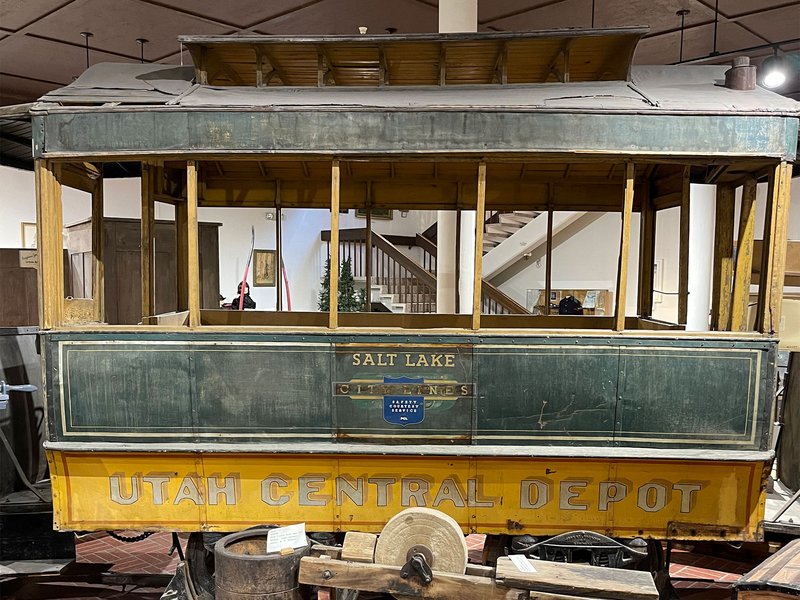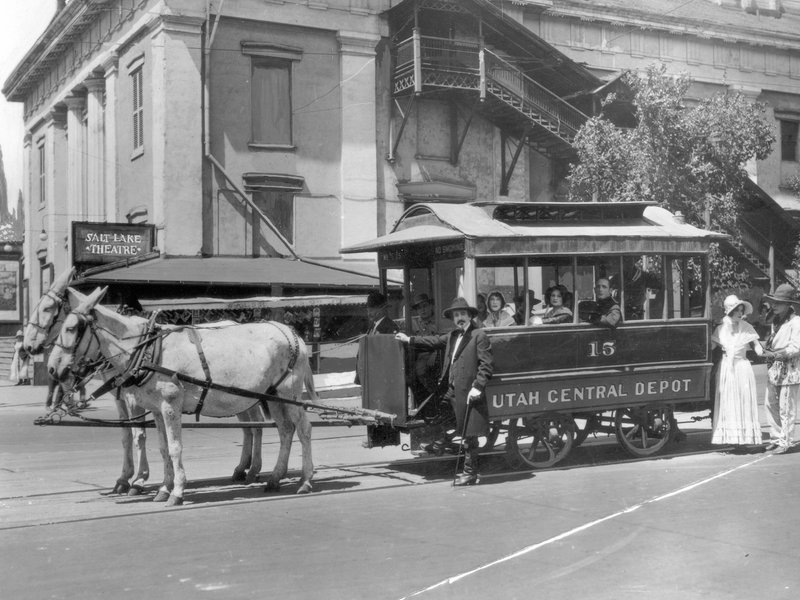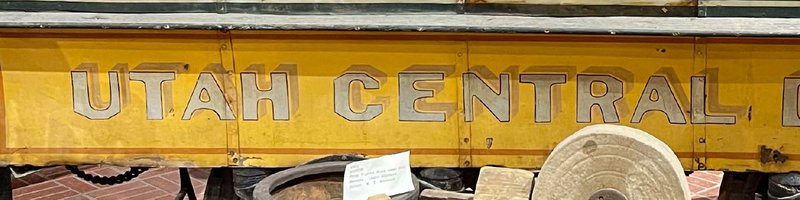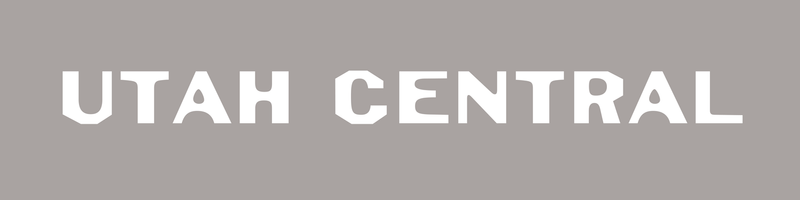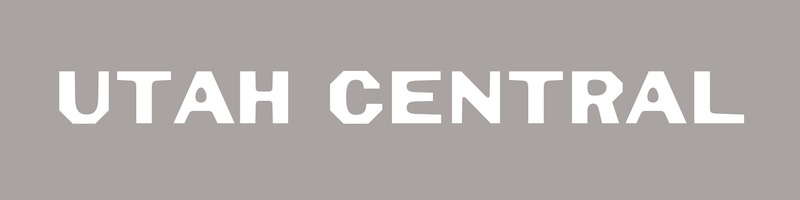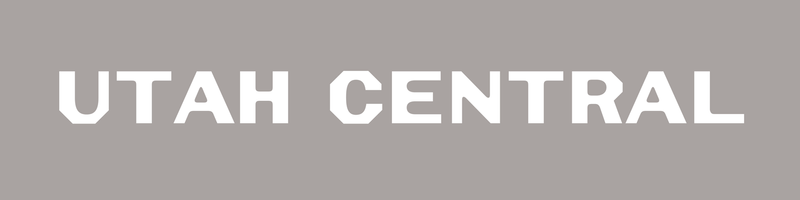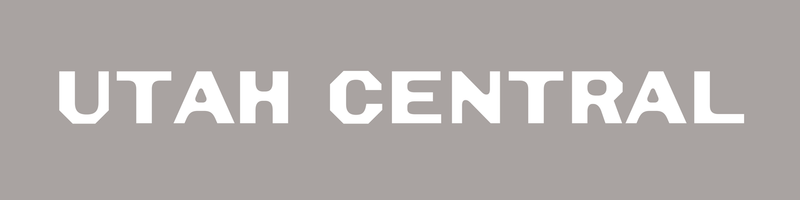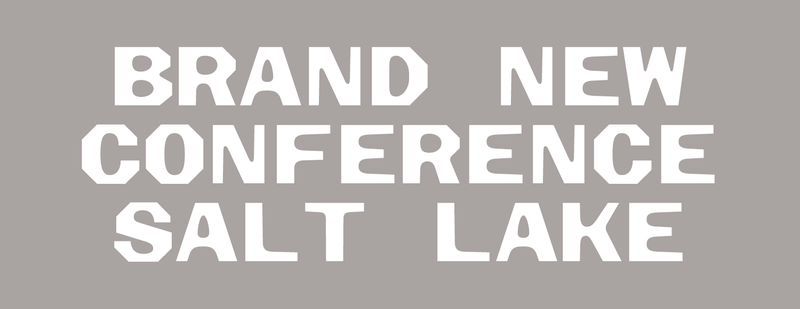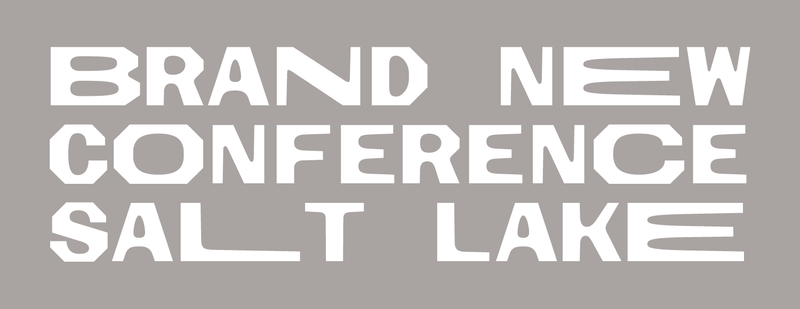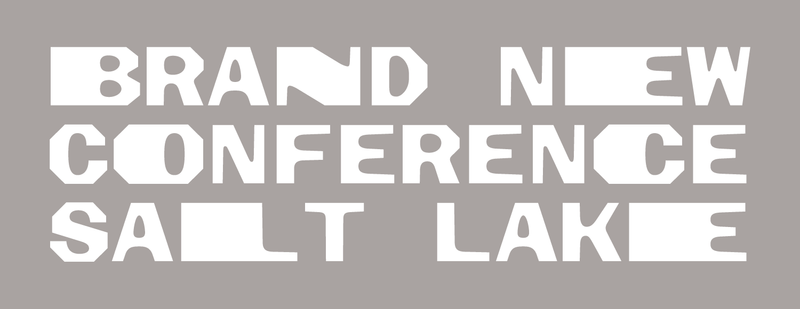
There is a special honor in designing a custom identity typeface, for the leading visual identity conference, organized by the most popular visual identity publication. Our custom typeface Plumbago ties an event to its host city, combining local history and typographic experimentation.
Custom typeface for Brand New Conference
Conference identity in motion. Video: Brand New
A brand designer’s brand design
While scouting Salt Lake City for Brand New Conference 2024, Armin Vit and Bryony Gomez-Palacio stopped at The Pioneer Memorial Museum near the venue. There, they spotted an unconventional style of handpainted lettering on an 1870s streetcar, which they felt could provide a key visual hook for their identity design for the conference. They challenged XYZ Type to reinterpret this source into a digital typeface that could be used throughout the system.
Lettering detail. Photo: Brand New
We are not type designers, so we knew we needed reinforcements. We’ve been fans of XYZ Type for some time, so we reached out to them to tackle the typeface.
Chris Skillern helped us with initial sketches, feeling out modes of expression that could capture the best qualities of the streetcar lettering. We wanted Plumbago to have the spirit of sign painting—dynamic and inconsistent—while working as a modern, optimized, digital font. After several tests, we leaned into strong octagonal silhouettes contrasting with teardrop-shaped counterforms, offset by moments of asymmetry and tapering terminals.
The city grid
Salt Lake City adheres to a uniform grid of square city blocks, with streets running north-south and east-west. This gave the Brand New team another primary visual concept, building the identity around that same grid, tying the conference to its location. Baking this premise into the custom typeface itself, we made Plumbago a monospaced font, with every capital letter pushing to the edges of its square.
Map of Salt Lake City based on the Pratt-Sherwood survey of 1847. Photo: Beinecke Rare Book and Manuscript Library
We worked with Travis Kochel to expand the character set and find creative ways to fit the system onto the grid. He proposed a playful solution to the misalignment caused by justifying a monospaced font: extra-wide alternates could fill the empty spaces. The test was too visually dramatic for the conference’s identity system but led us to a subtler idea.
We added a few key alternates to rebalance combinations where a typically wide letter pairs with a typically narrow letter. For example, breaking out of the monospace rule by swapping a wider W next to a narrower I maintains the overall word length while giving the letterforms a more natural appearance. Bryony and Armin liked this idea, which we included as an optional OpenType feature in the custom typeface.
We also introduced alternates with slabs so that glyphs that carry a lot of empty space—like A, L, and T—can take up more of their allotted squares.
Variety inside the square
OpenType tricks aside, perhaps Plumbago’s most eye-catching feature is a striking contrast between its inner and outer forms, ovoid curves butting up against straight boundaries. The dynamic energy of this shape language plays on the steady rhythm of a monospaced typeface, giving the typeface freedom to adopt unconventional solutions in much of the extended character set.
Unexpected ingredients
Plumbago grew out of a unique collaboration with a trusting client who brought us an unconventional recipe for a typeface, making the 2024 event feel strongly planted in Salt Lake City. We can’t wait to see what big ideas Armin and Bryony bring to the stage with it.
Zrinka Buljubašić’s early sketches for Plumbago’s lowercase
Plumbago is now publicly available for early access licensing. In the months leading up to the conference, we’ve upgraded the original custom typeface with a lowercase and a series of widths, the beginnings of an unconventional family that will continue to grow. As eclectic and specific as the ideas underlying this commission initially seemed, they turned out to be worth exploring even further.
Plumbago in use on the Brand New Conference 2024 website